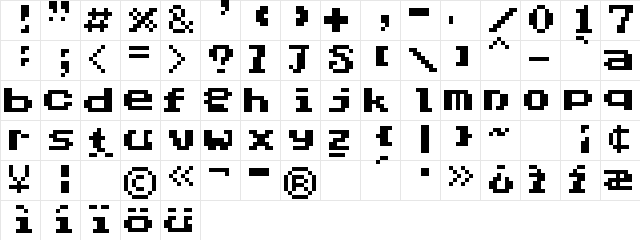
Phantalia Regular
Designer: Caveras / Cliff Modes
Design Context for Phantalia
Phantalia is a composed and adaptable typeface that performs quietly and consistently across a wide range of design contexts.